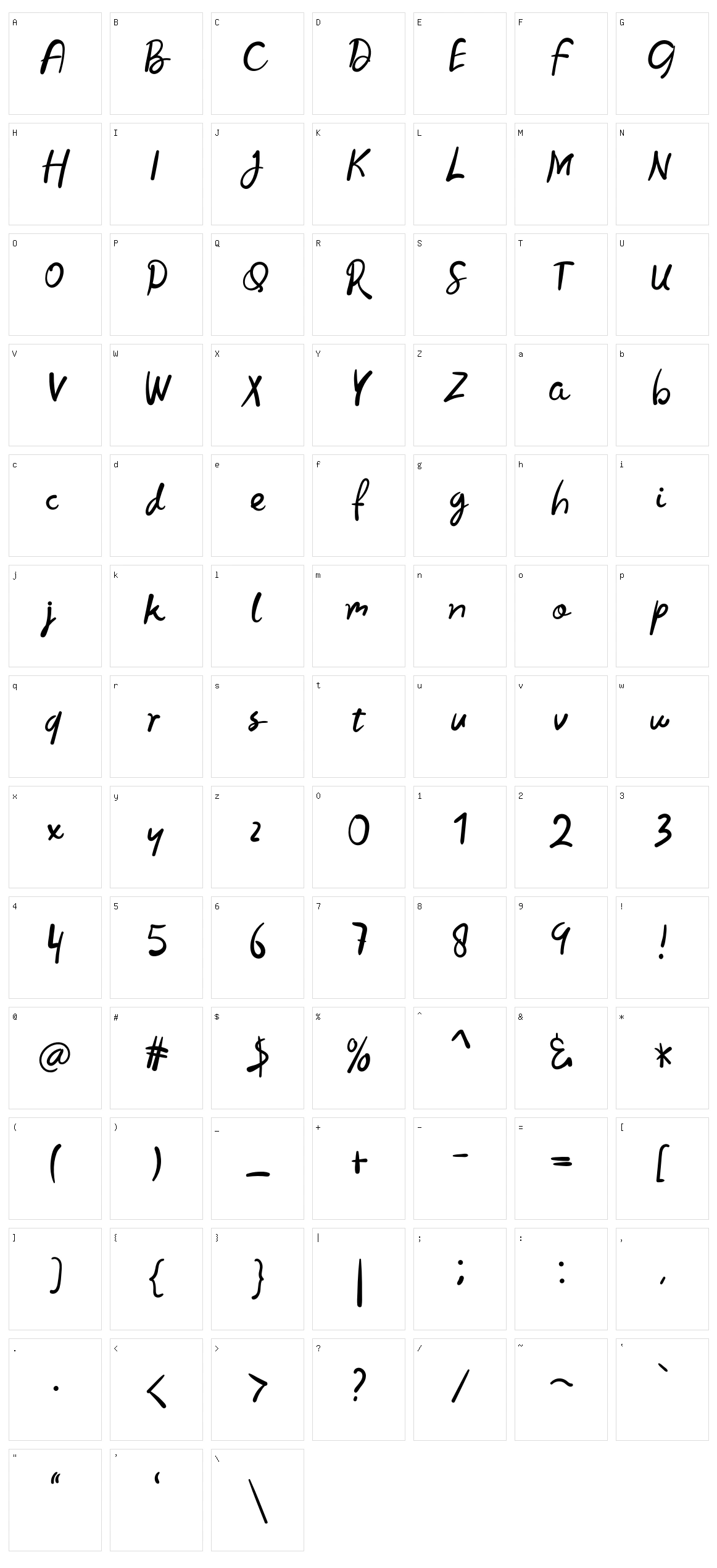
The free font Lost Dolly is carefully designed by Eddy Goodboy, showcasing a thoughtful balance of creativity and usability and falls under the Script font style. When you download the ZIP file, it contains only 64.06 KB of font files, making it lightweight and quick to download. Please review the license details below to understand permitted usage and distribution rights. If license information is not available, we recommend using this font for personal projects only or contacting the author directly for commercial usage permissions.